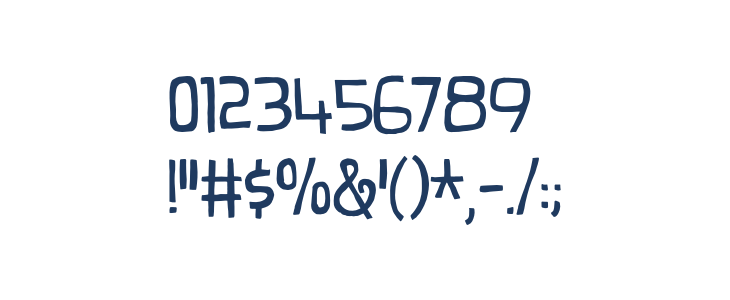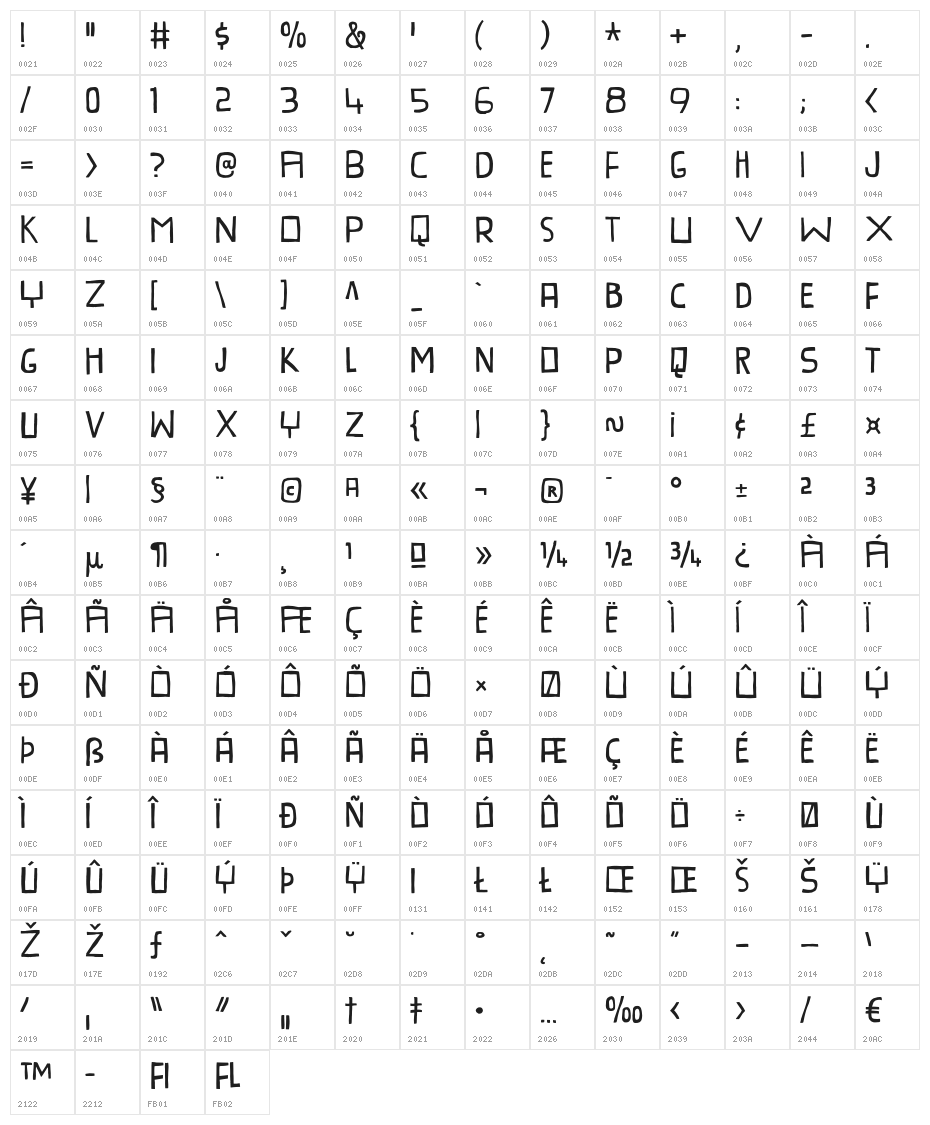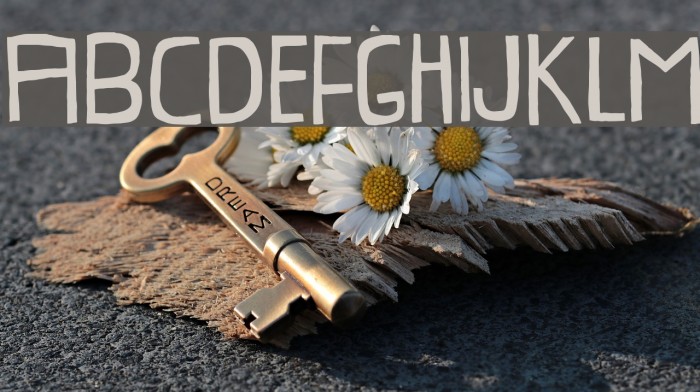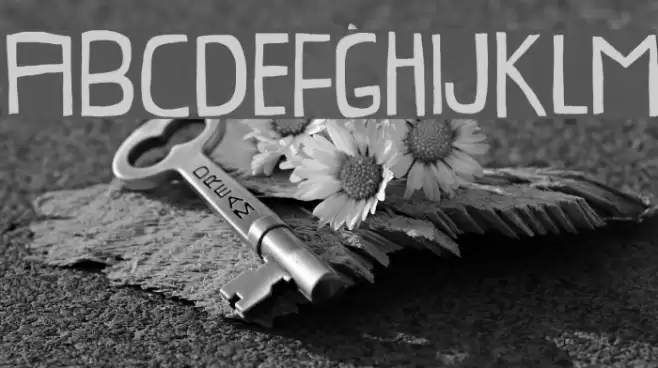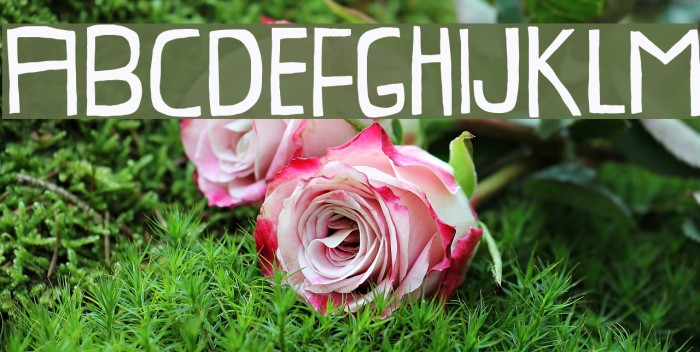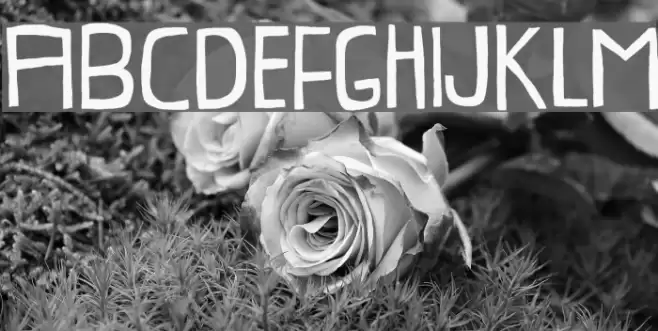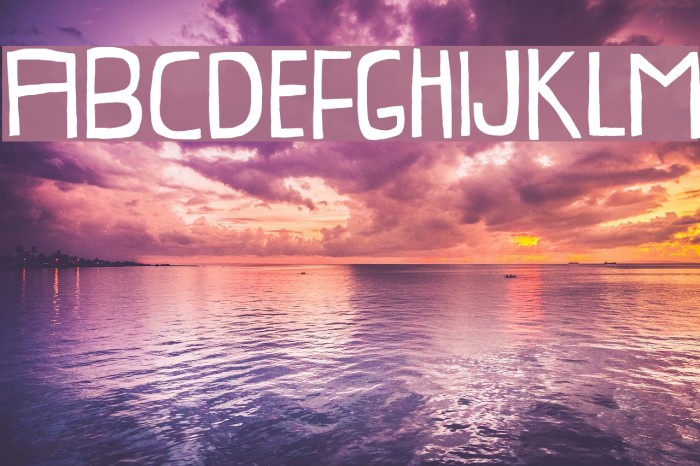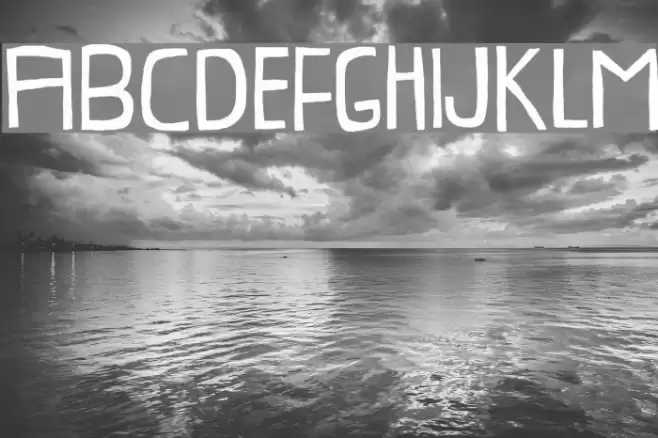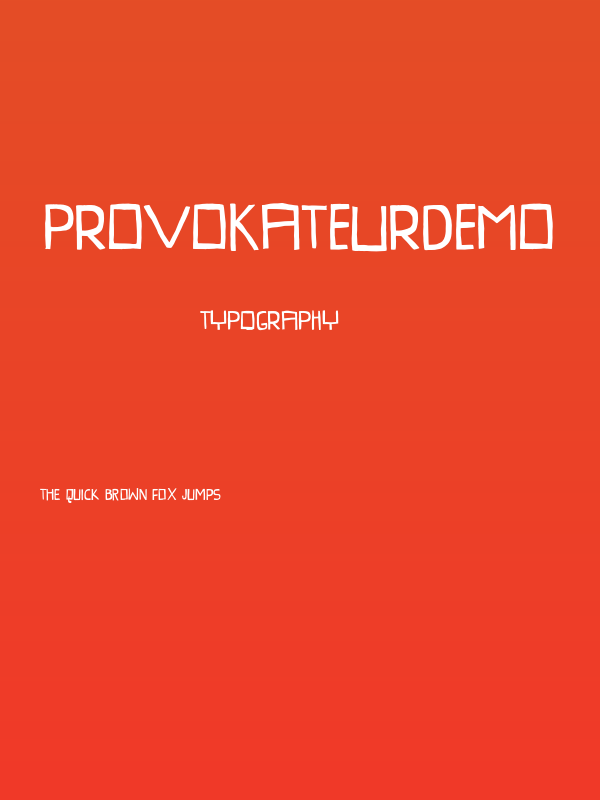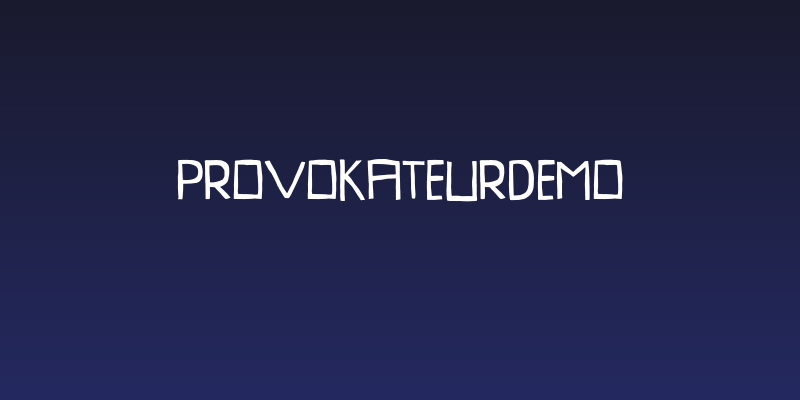
ProvokateurDEMO Font
ProvokateurDEMO Description
This font features a bold, hand-drawn style with a playful and artistic flair. The characters are unevenly shaped, giving a sense of spontaneity and creativity. The uppercase letters are tall and slightly narrow, while the lowercase letters maintain a consistent height, adding to the quirky aesthetic. Numbers and special characters follow the same artistic style, making the font cohesive across all elements. The strokes are thick and consistent, providing a strong visual impact. This font is ideal for projects that require a unique and eye-catching design.
| Proposed Projects | Ideal for posters, creative branding, children's books, and artistic projects. |